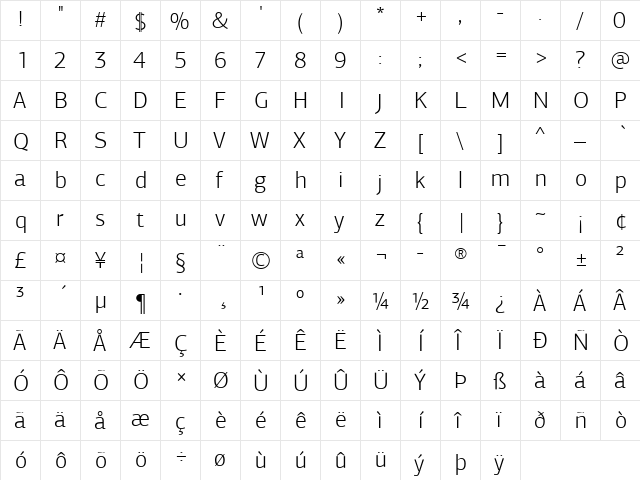
PF Agora Sans Pro Light
Design Context for PF Agora Sans Pro Typeface
PF Agora Sans Pro offers clean, dependable letterforms without strong stylistic allegiance, making it a practical choice for designers who need flexibility. Its slender proportions lend an understated elegance to any composition.